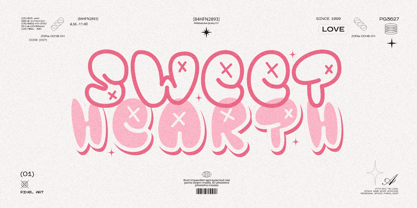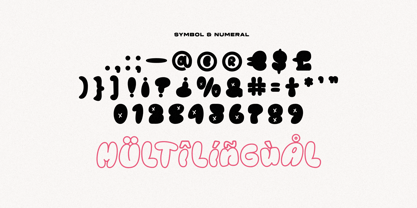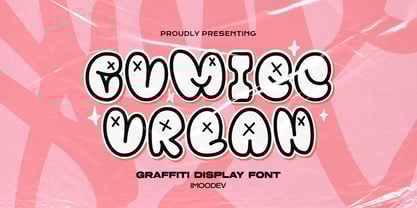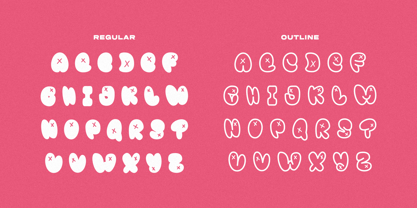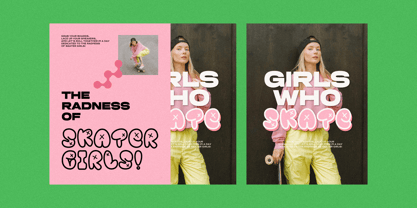
Gumiec Urban
by Imoodev
The Gumiec Urban Font Family was designed by Aulia Savira Putri and published by Imoodev. Gumiec Urban contains 2 styles and family package options.
Gumiec Urban Graffiti Bubble Font has smooth curves and a visual style a can embodies charm and elegance in every lettering, making your work look stunning and attractive.
Font that works in both uppercase and lowercase sizes, suitable for a wide variety of projects such as a display font for headings, logo fonts, invitations, branding, book covers, magazine layout, card, product packaging, product mockup, mugs, posters, labels, editorials, art deco, and any type of advertising purpose.
Features:
• Uppercase and Lowercase
• Punctuation, Alternates and, Ligatures
• Number and Symbol
• Multilingual Support
• Opentype Features